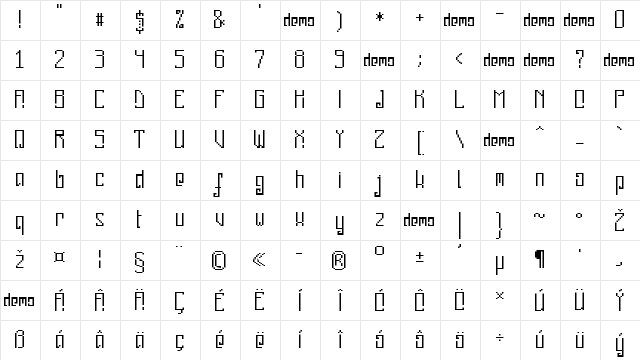
pixelanky CE DEMO Regular Free Font
pixelanky CE DEMO Regular
Foundry: Vaclav Krejci
Designer: Vaclav Krejci
Design Context for pixelanky CE DEMO
pixelanky CE DEMO is rooted in pixel-grid construction, making it a natural fit for game UI, retro computing aesthetics, and digital nostalgia projects.